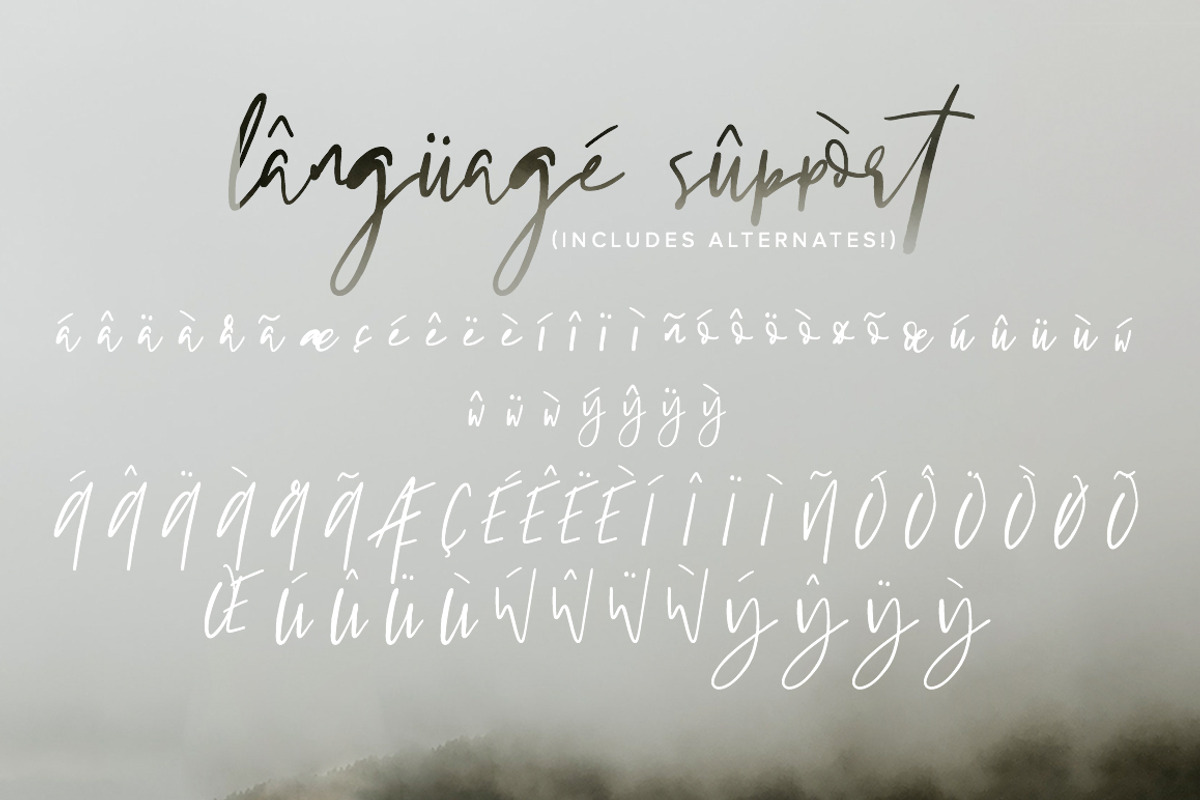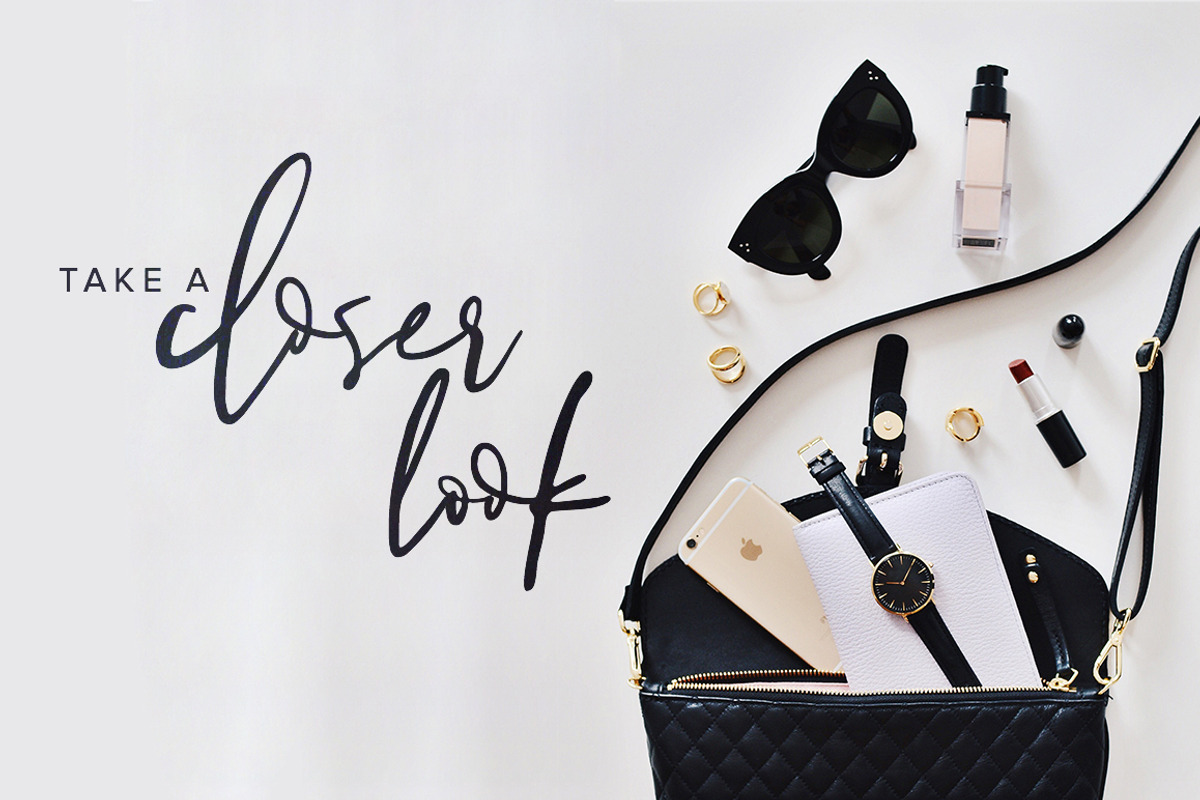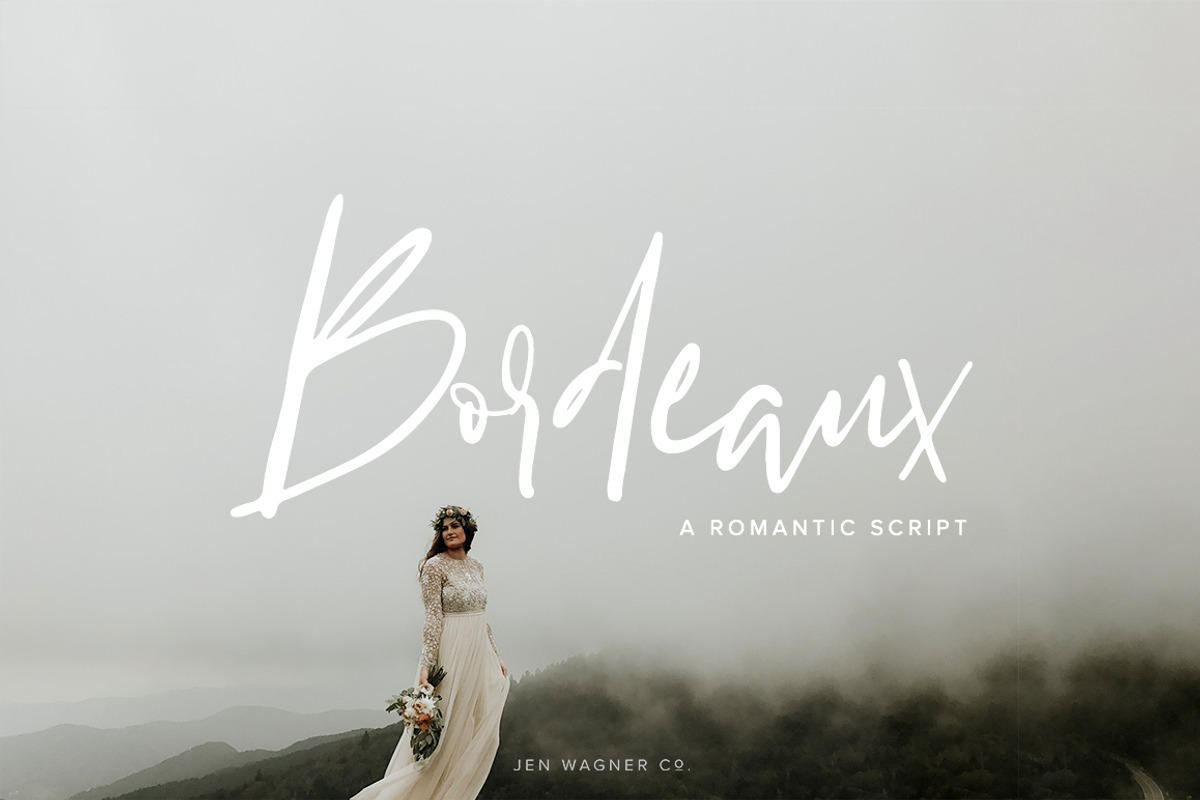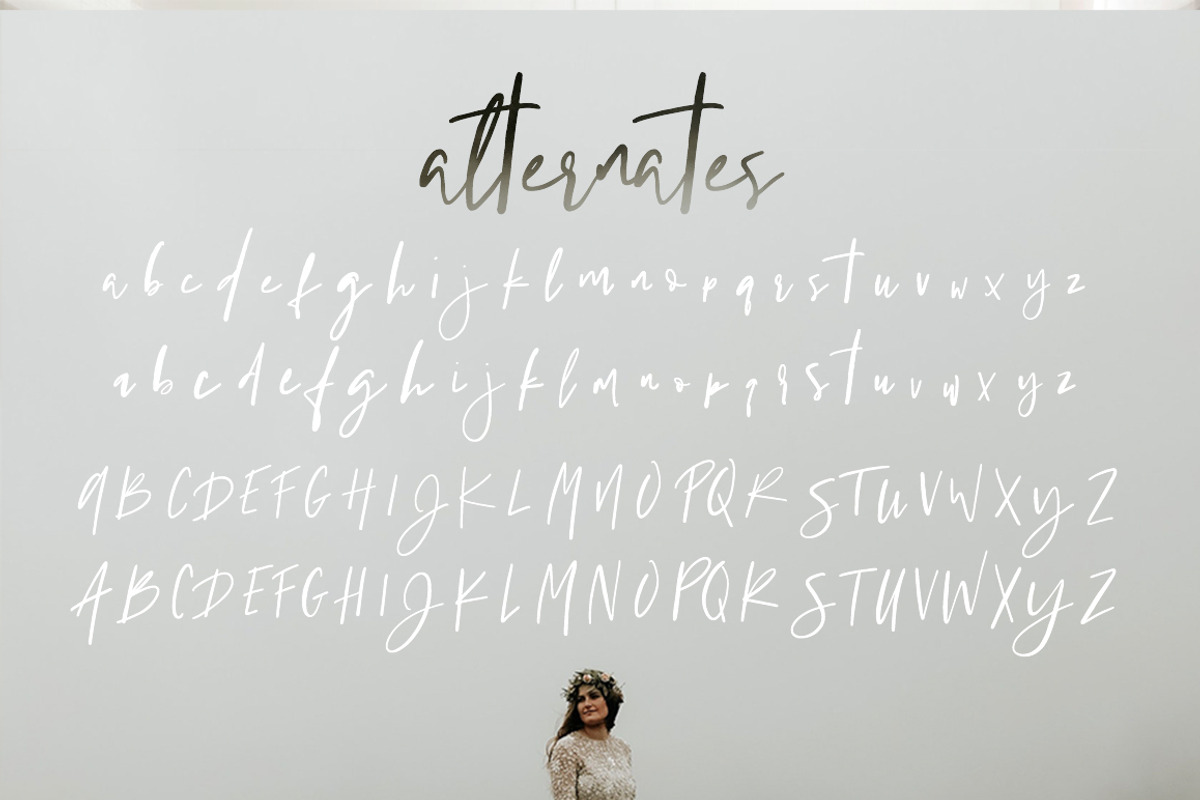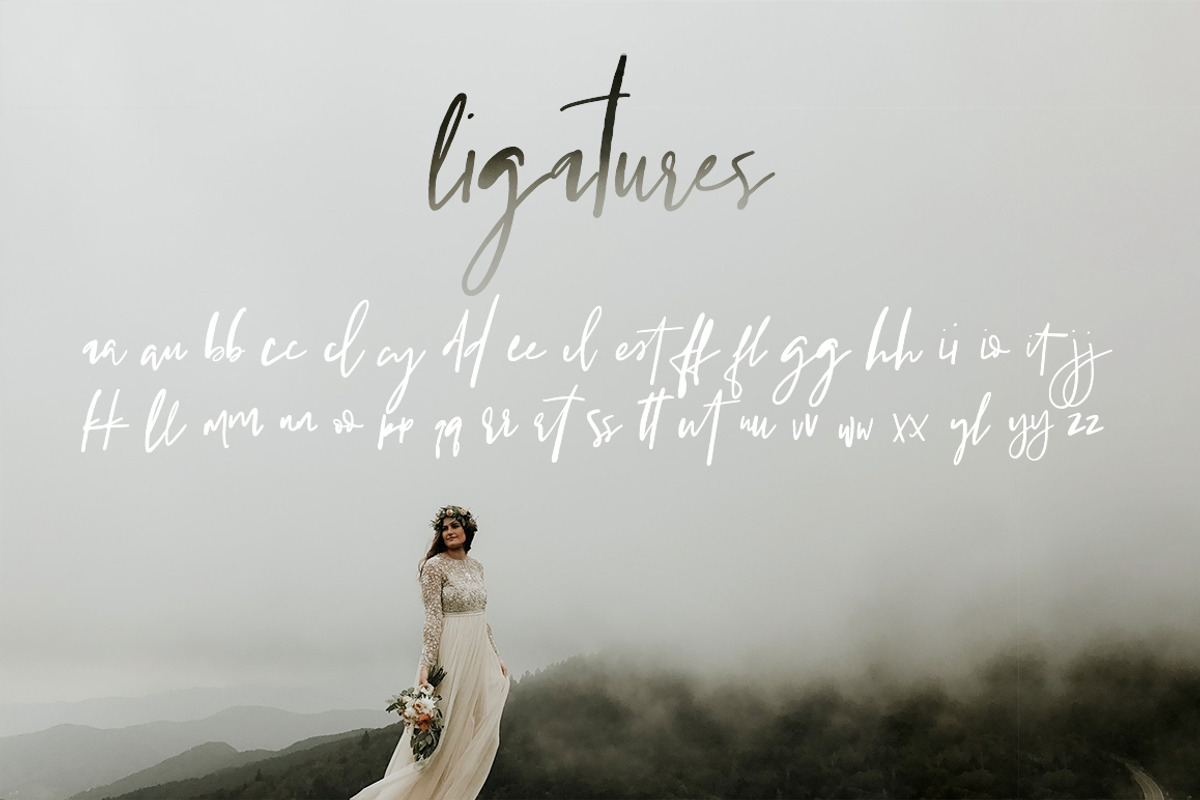
Bordeaux | A Romantic Script
Bordeaux is a stunning, carefree, romantic script designed to make your next set of invitations, quotes, blog posts, and more completely beautiful. With 37 ligatures and alternates for each letter, Bordeaux looks completely hand-written and flows beautifully.
- Full upper and lowercase alphabet
- Alternates for each letter (via glyphs panel or below letter)
- Common ligatures and double letters
- Numbers and Punctuation
This font pairs beautifully with Proxima Nova Regular and Semi-Bold, set to all caps and 220 tracking.